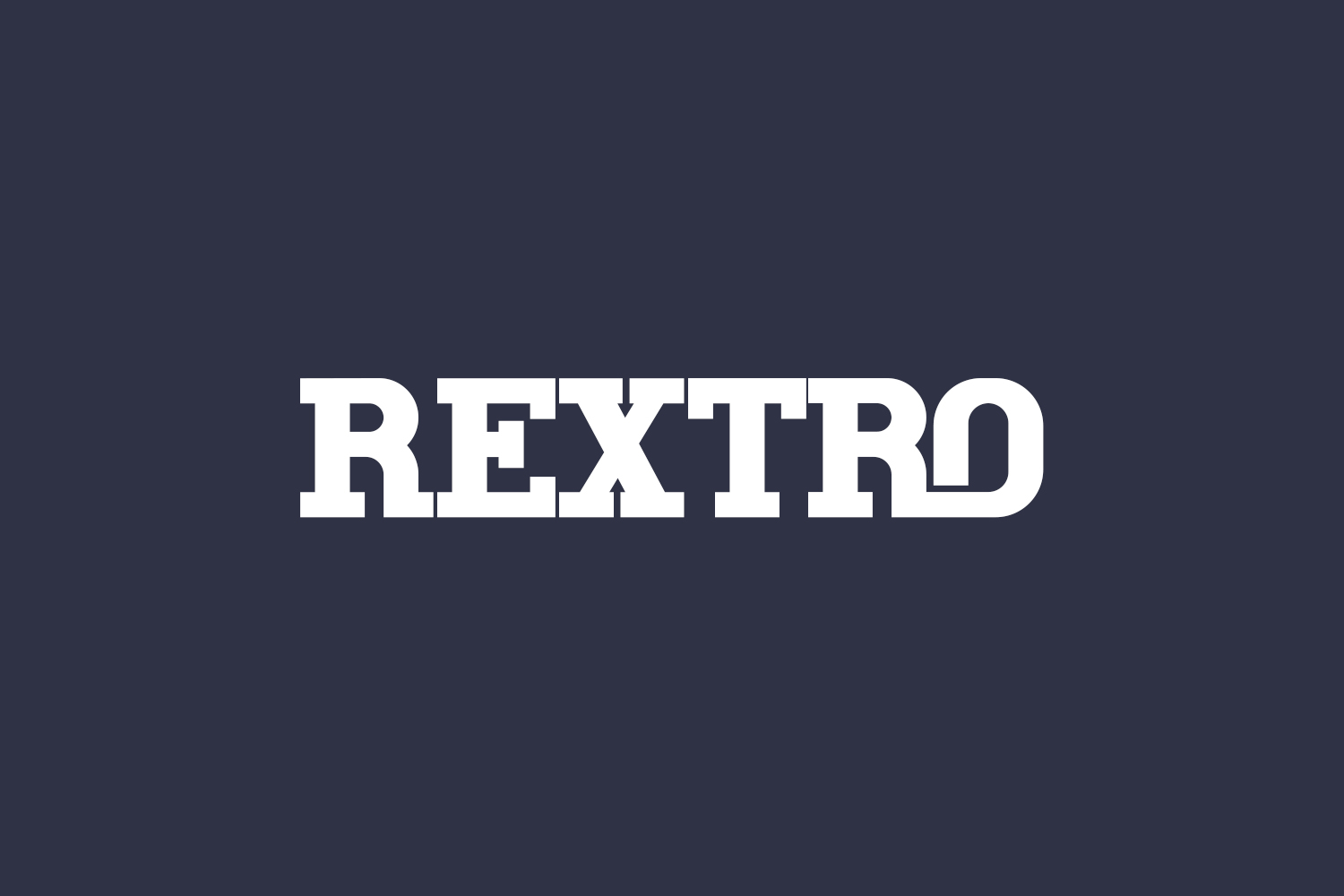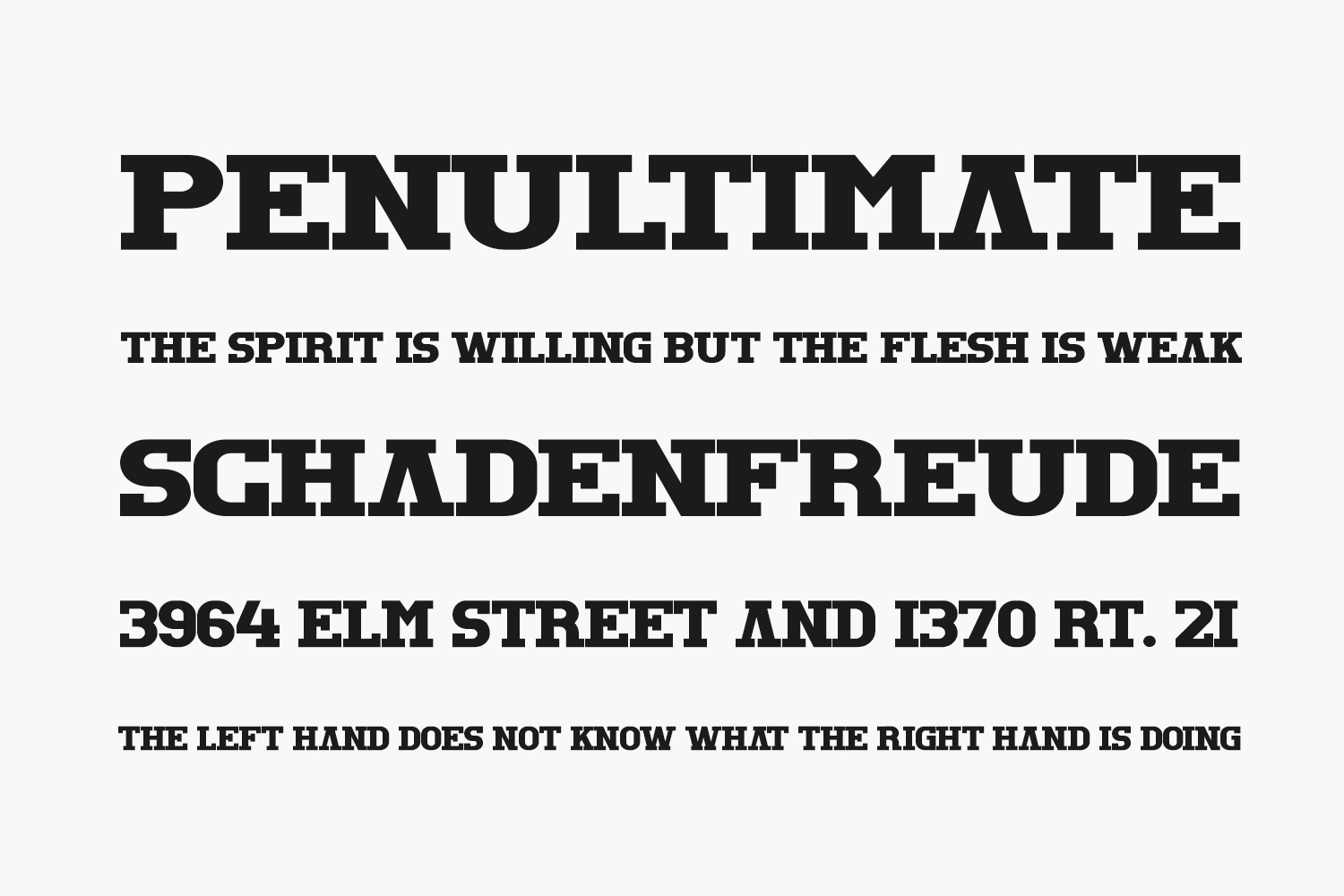
Rextro Free Font is a cool, bold and thick lettered display font. Rextro Free Font is free for personal use only. Please purchase the full version for commercial use.